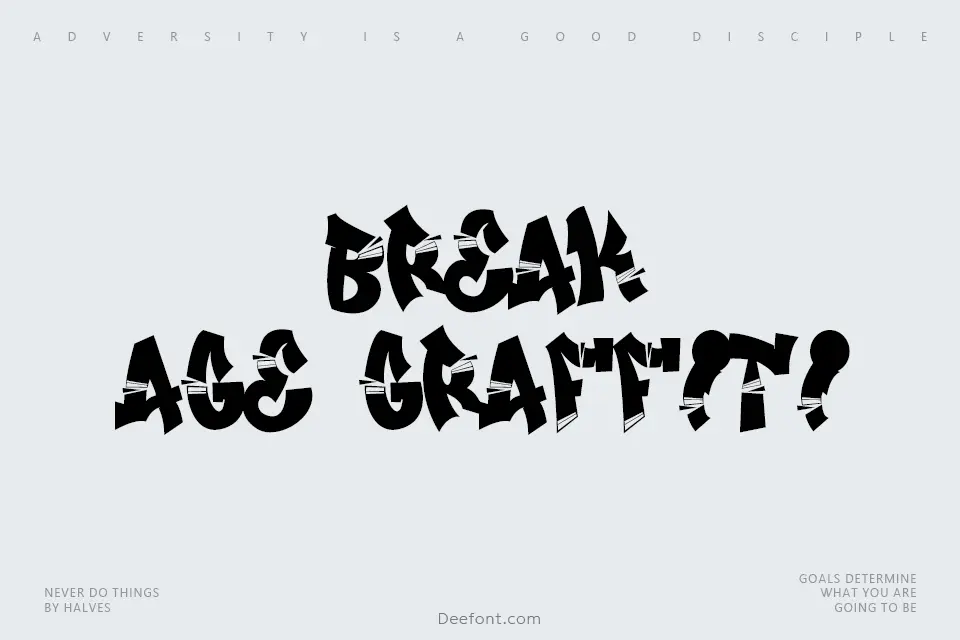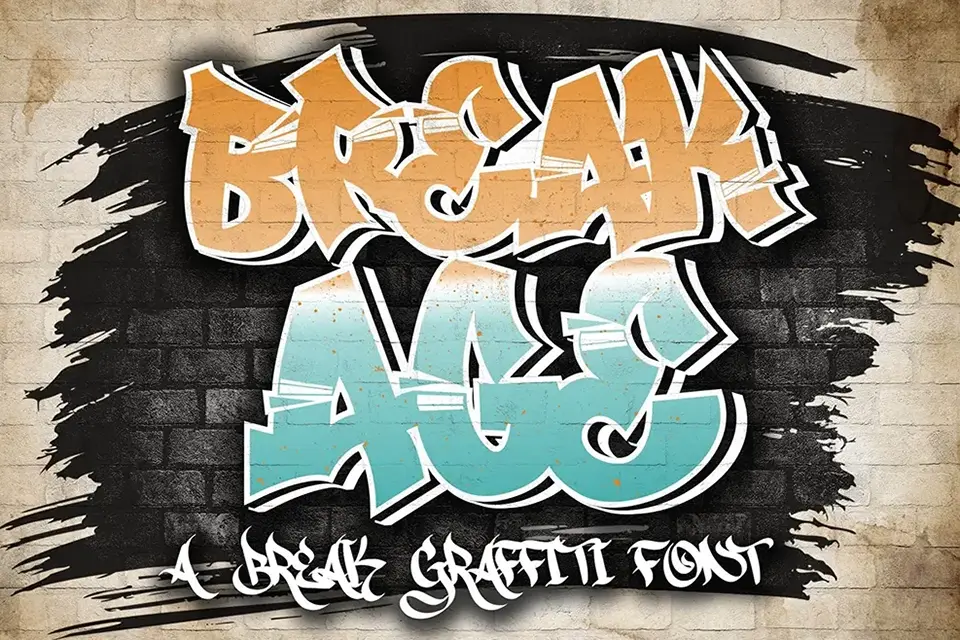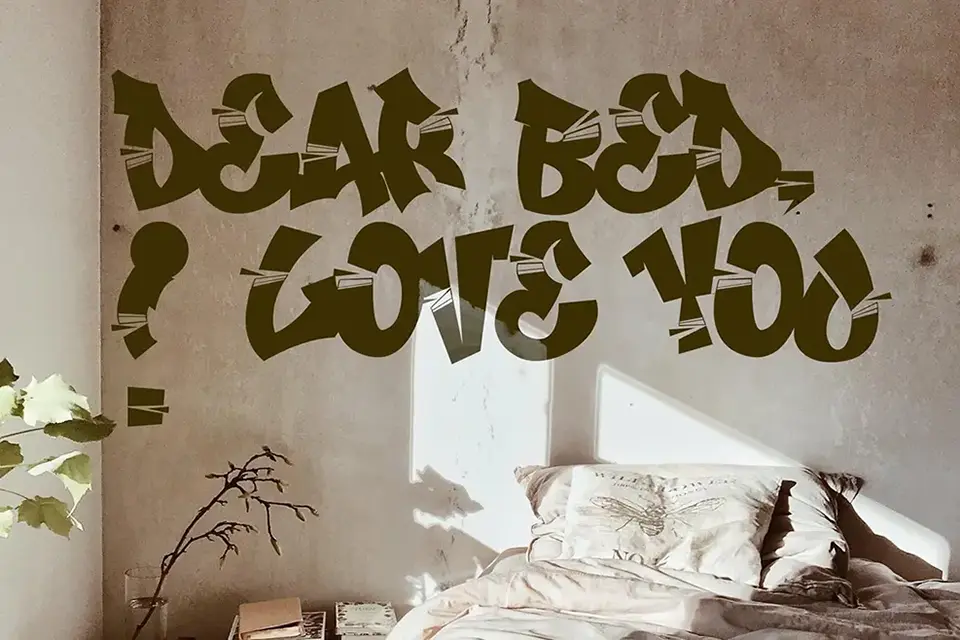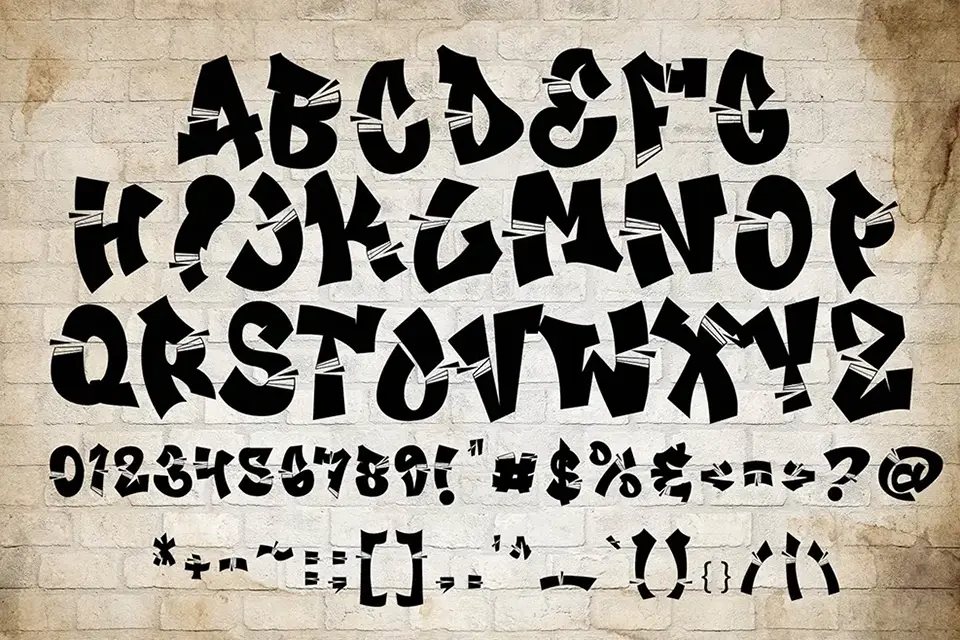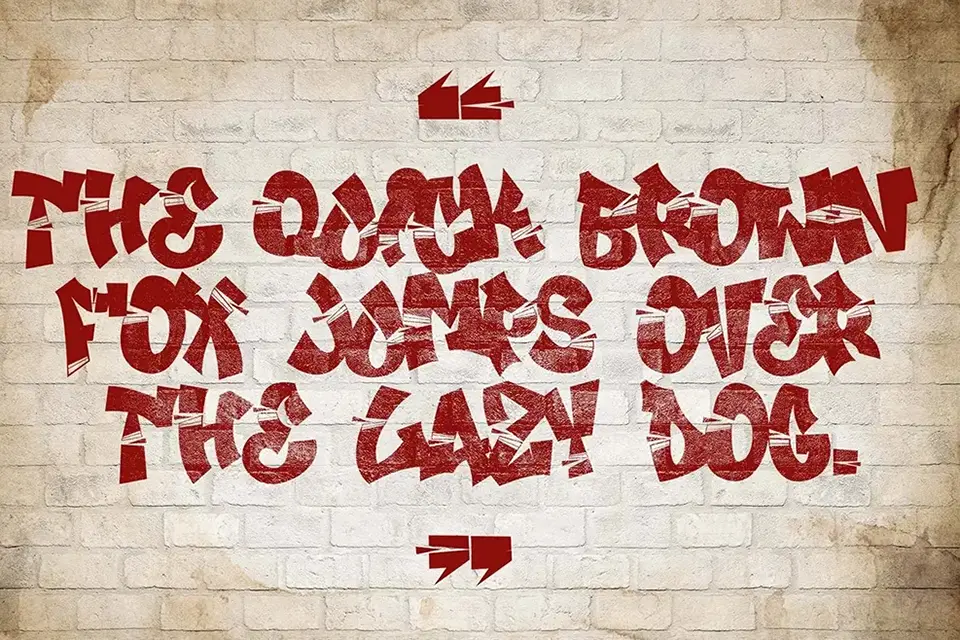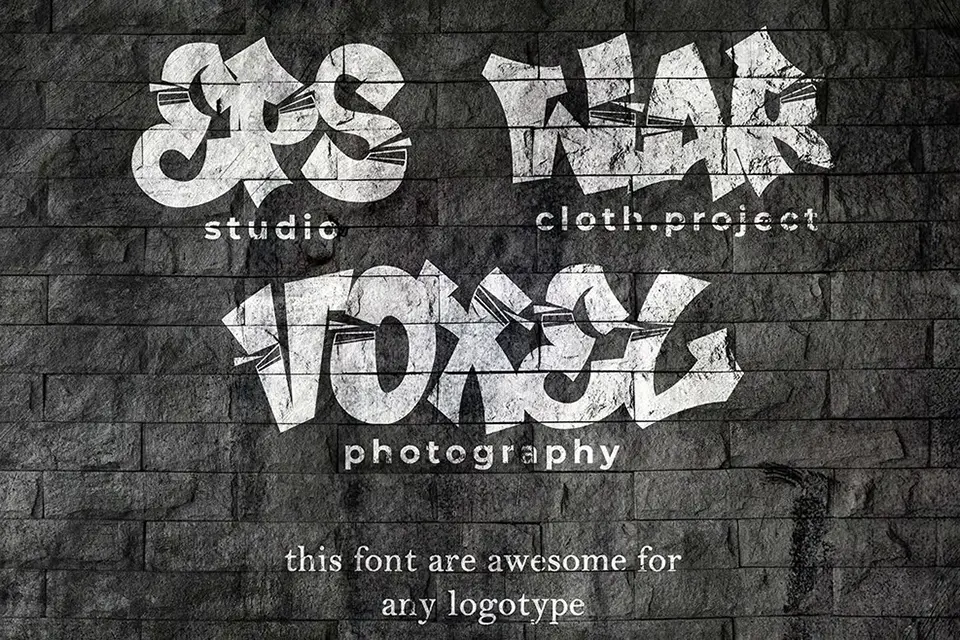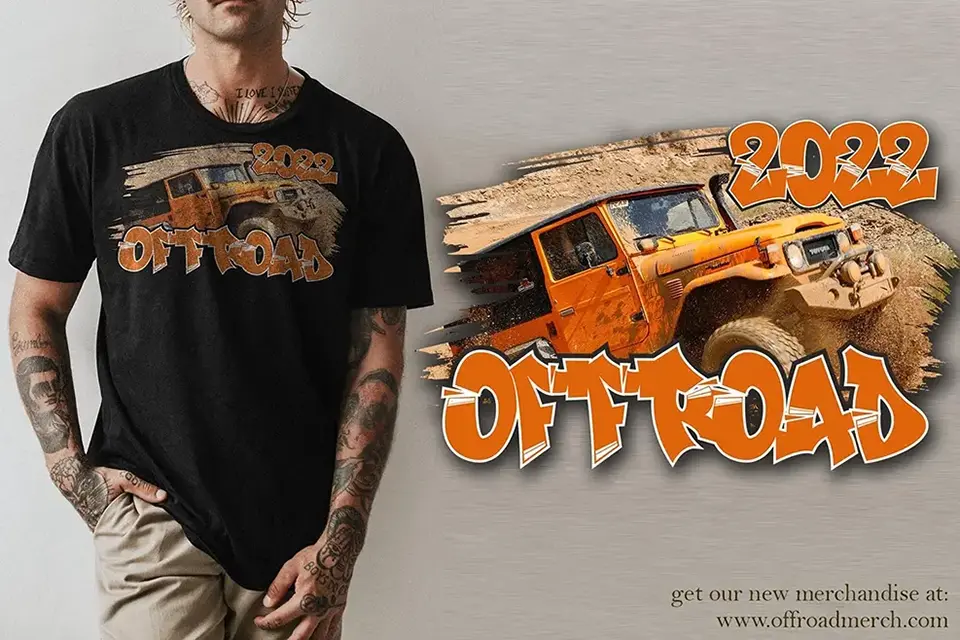
Break Age Graffiti Font
Break Age Graffiti is a rebellious and expressive display typeface that captures the bold energy of urban street art. Featuring sharp edges, aggressive characters, and a unique graffiti-inspired aesthetic, this font is perfect for projects demanding an edgy, eye-catching design. The textured appearance and irregular lines create an authentic street art feel ideal for posters, flyers, apparel, branding, and creative projects that need to make a bold statement with urban flair.